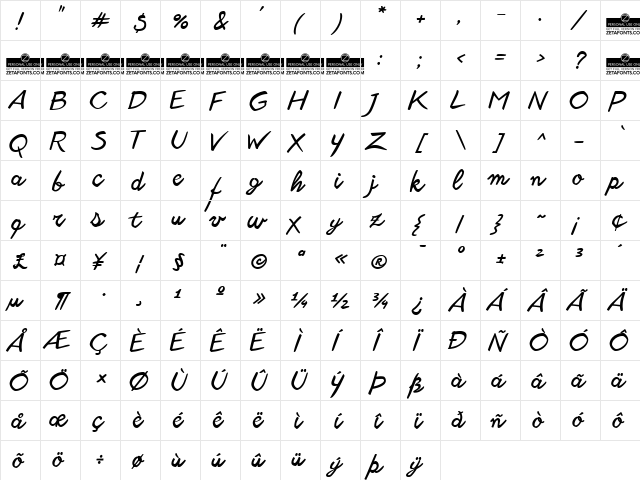
Another shabby Light
| Foundry | studio kmzero |
| Designer | Francesco Canovaro |
Design Context for Another shabby Typeface
Another shabby is a composed and adaptable typeface that performs quietly and consistently across a wide range of design contexts. The delicate stroke weight brings airiness and refinement to layouts.